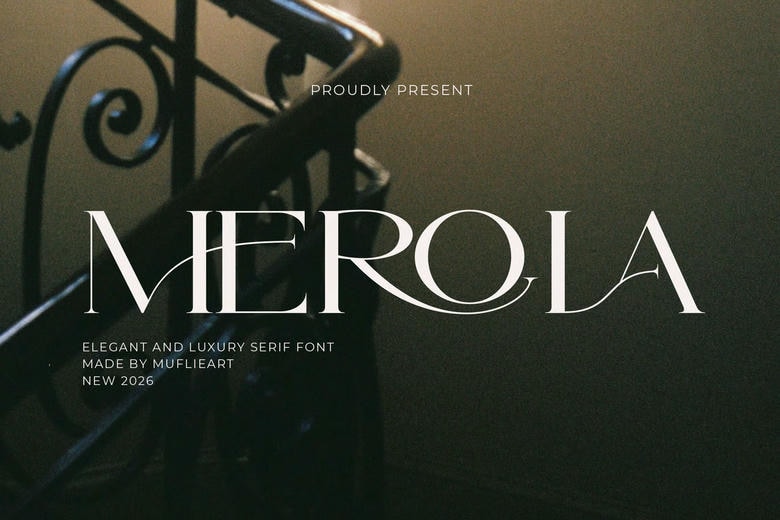
Merola Font
Merola is an elegant, beautiful and modern serif font. With its modern and minimalist appearance, Merola lends a luxurious, classy, and clean style to your projects like websites, modern logos, brand identities, social media quotes, wedding stationery, magazines, etc!
Merola features unique and classy capital letter A to Z and also comes with unique alternates and ligatures making Merola a beautiful font that can be customized for various projects and jobs you want.
Merola Serif Font